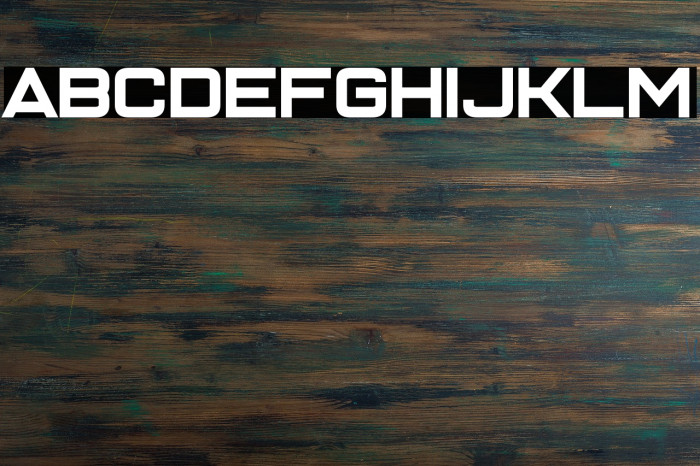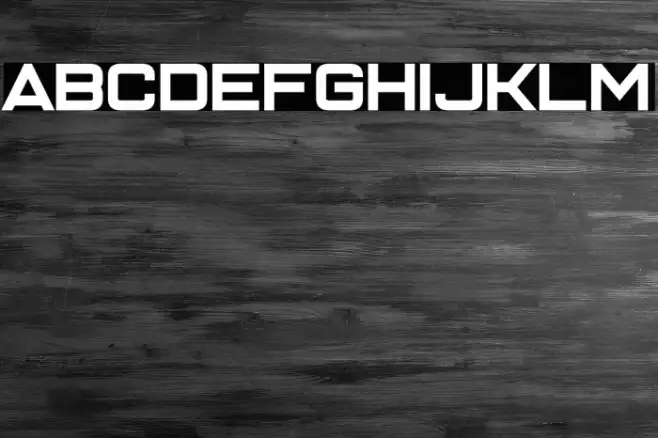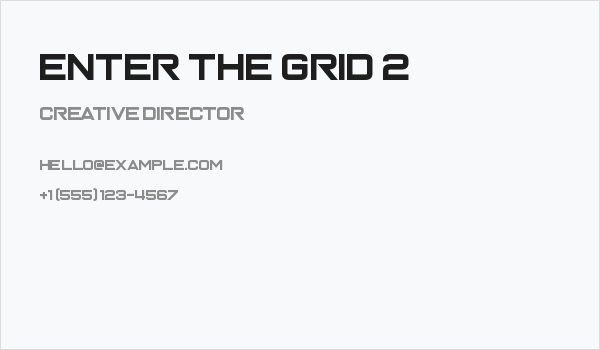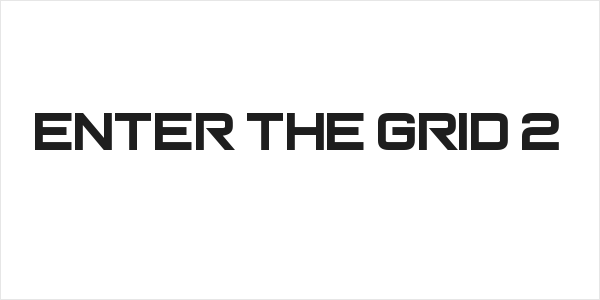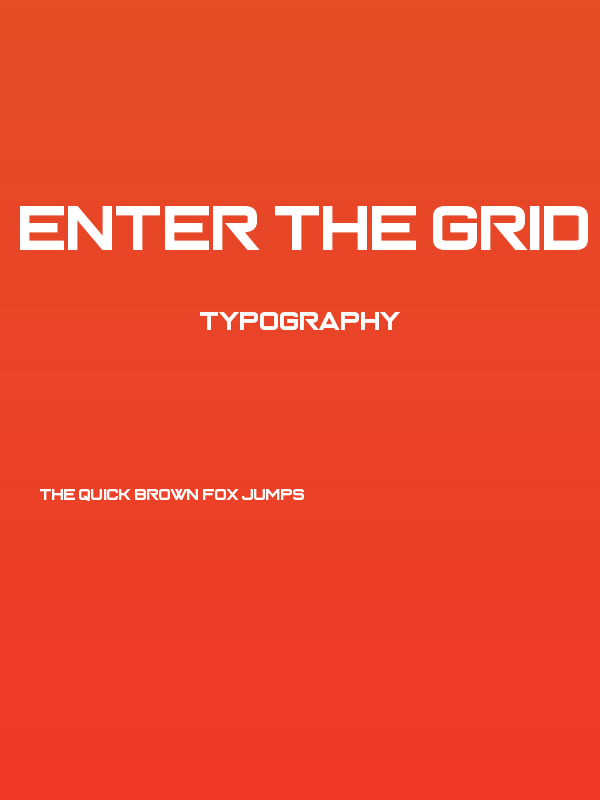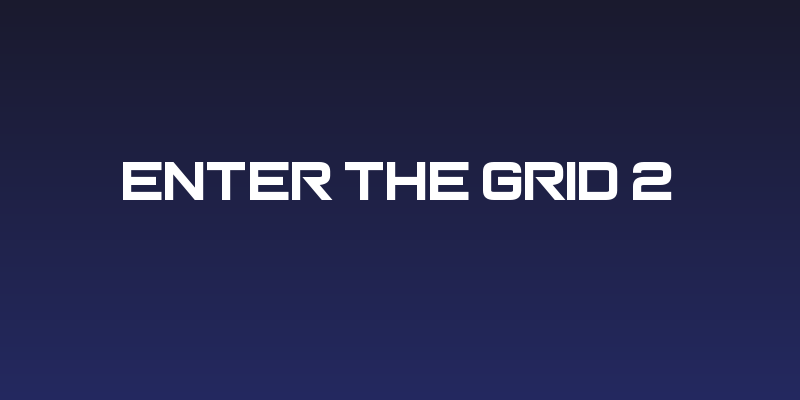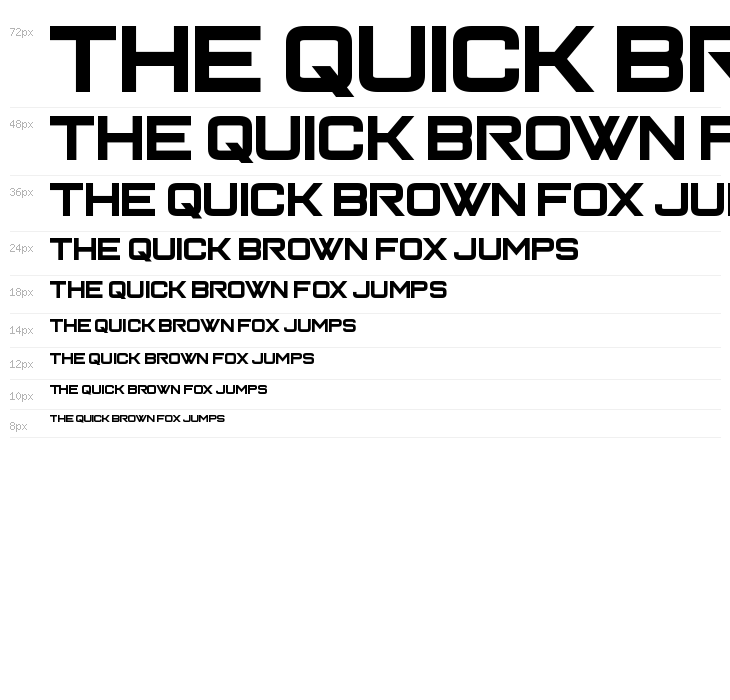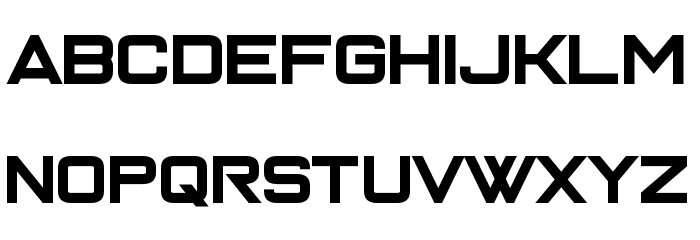
Enter the Grid 2 Font
Enter the Grid 2 Description
This font features a bold, geometric design with a futuristic aesthetic. The characters are constructed with straight lines and sharp angles, creating a sense of precision and modernity. The uppercase and lowercase letters maintain a consistent style, with a uniform height and width that enhances readability. The numerals and special characters are designed to match the overall aesthetic, providing a cohesive look across all elements. The font's strong presence makes it ideal for projects that require a modern and impactful visual statement.
| Use Case | Headlines, Logos, Display text |
| Proposed Projects | Ideal for technology branding, sci-fi themed designs, video game interfaces, and modern advertising campaigns. |